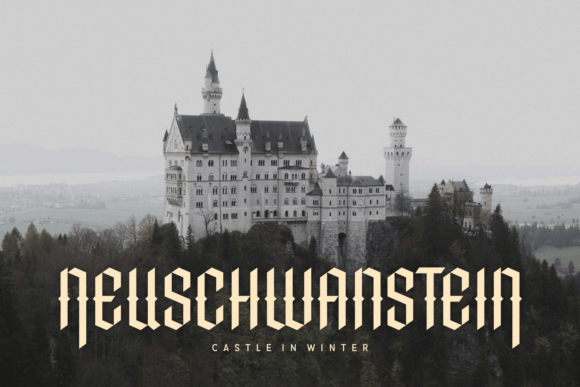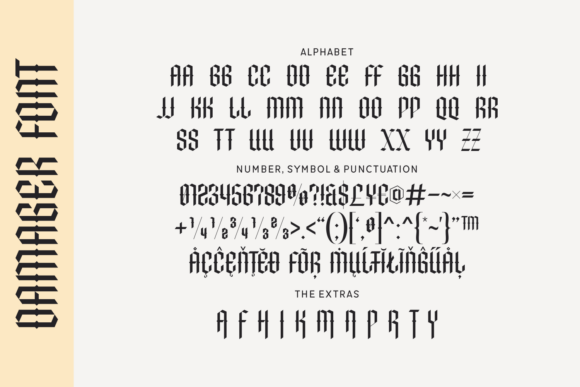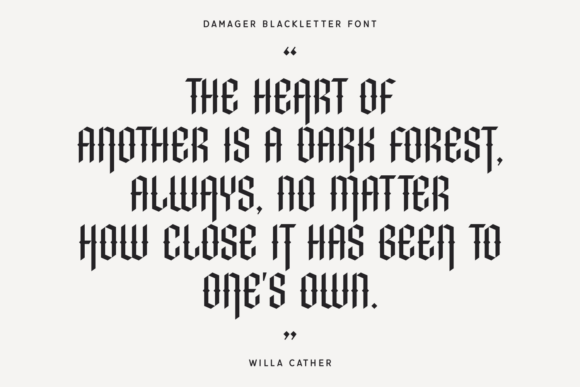
The Ultimate Guide to Damager Font: Unleashing Bold and Edgy Designs
I’ll never forget the time I was working on a project for a client who wanted a bold, eye-catching title that would make their brand stand out. I scoured the internet for the perfect font, but nothing seemed quite right. That was until I stumbled upon Damager Font – a modern blackletter font that instantly caught my attention with its sharp angles and clean lines. In this article, I’ll share my experience with Damager Font, its features, and how to make the most of it in your designs.
Damager Font: A Personal Review
Damager Font has quickly become one of my go-to fonts for projects that require a strong, dramatic impact. Here’s what I love about it:
- ✨ Bold and edgy look: Damager Font combines traditional Gothic styles with a modern twist, making it perfect for titles, logos, and designs that need to make a statement.
- ✅ Clean lines and sharp angles: The font’s sleek design ensures that it remains legible even at smaller sizes, making it versatile for various applications.
- 💯 Highly versatile: Damager Font can be used for a wide range of projects, from branding and advertising to packaging and editorial design.
While Damager Font is an excellent choice for many projects, it’s not without its quirks:
- 🤔 Limited use for body text: Due to its bold nature, Damager Font may not be the best choice for body text, especially for longer passages.
- ⚠️ Glyph compatibility: Some glyphs may not be compatible with all platforms or software, so it’s essential to test the font before finalizing your design.
The Story Behind Damager Font
Damager Font was designed by a team of typographers who wanted to create a modern, bold font that would pay homage to traditional Gothic styles. Inspired by the sharp angles and clean lines of ancient manuscripts, they crafted a font that would be both powerful and stylish. With its unique blend of old and new, Damager Font has quickly become a popular choice among designers and crafters.
| Font Name | Damager Font |
| What type of projects is Damager Font best suited for? | Damager Font is perfect for eye-catching titles, logos, and designs that need a strong, dramatic impact. It’s ideal for branding, advertising, packaging, and editorial design. |
| Can I use Damager Font for body text? | While Damager Font is a beautiful font, it’s not recommended for body text due to its bold nature. It’s best used for headlines, titles, and short paragraphs. |